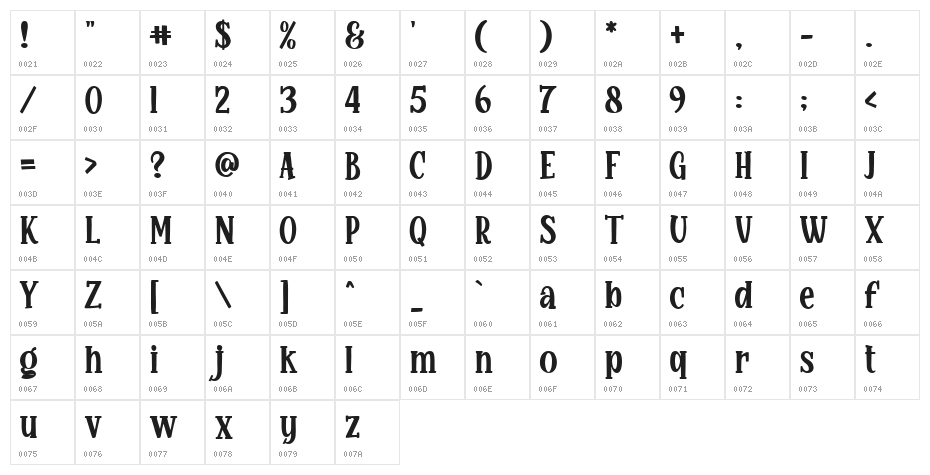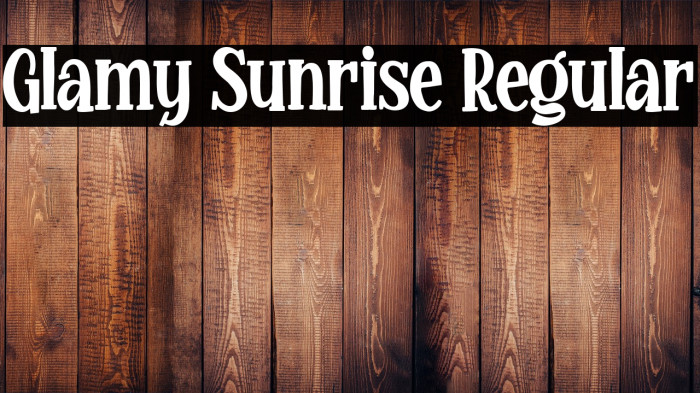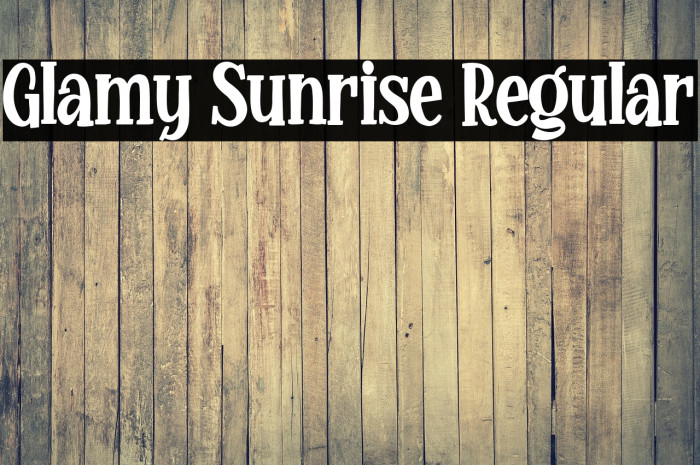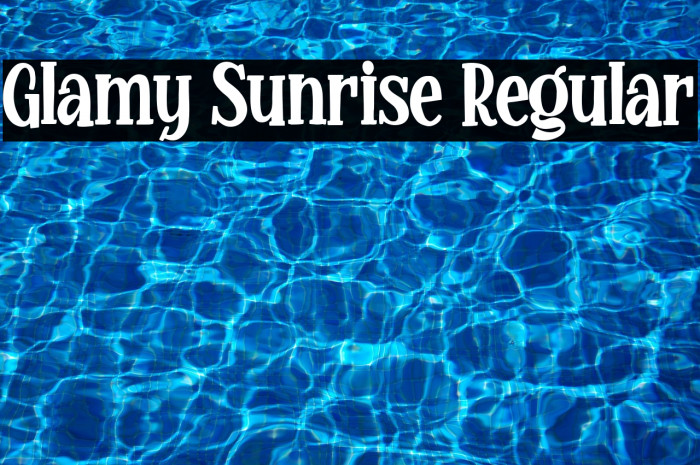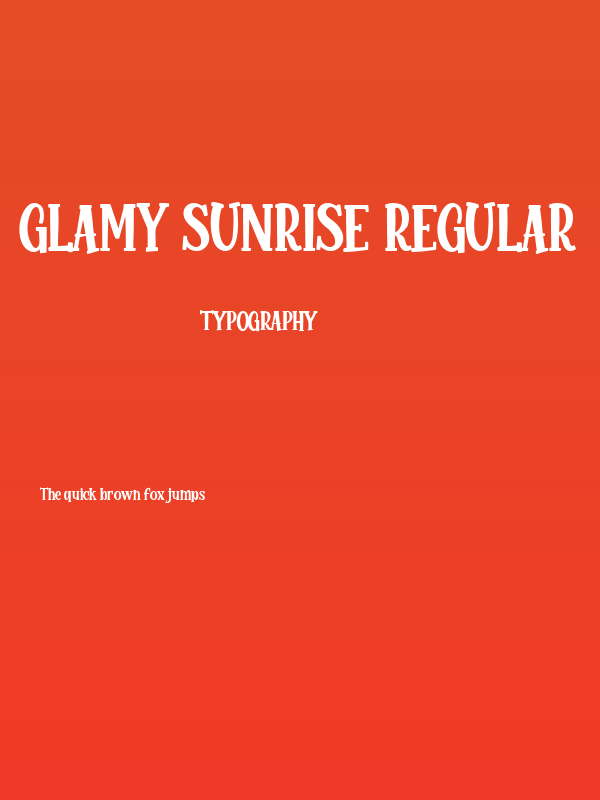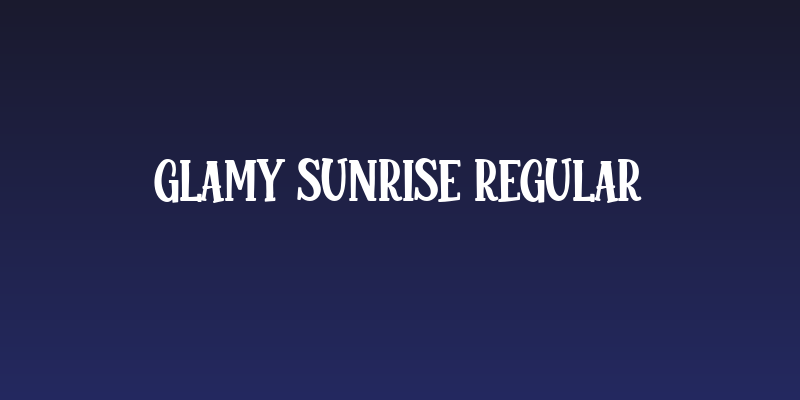
Glamy Sunrise Regular Font
Glamy Sunrise Regular Description
This font features a bold and playful design with a distinct decorative flair. The uppercase letters are tall and slightly condensed, giving them a commanding presence. The lowercase letters maintain a consistent style, with rounded edges and a whimsical touch that adds character. The numerals are bold and easily readable, complementing the overall style. Special characters are creatively designed, adding to the font's unique personality. This typeface is ideal for projects that require a fun and engaging aesthetic.
| Proposed Projects | Ideal for children's books, playful branding, posters, and creative invitations. |